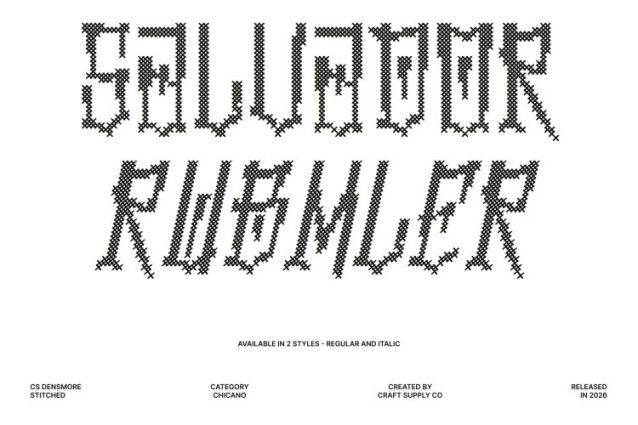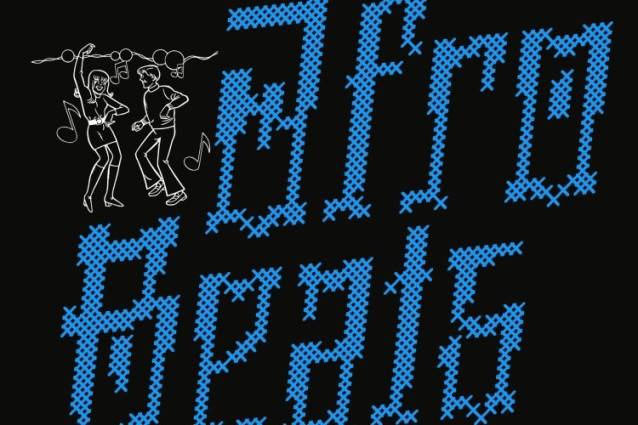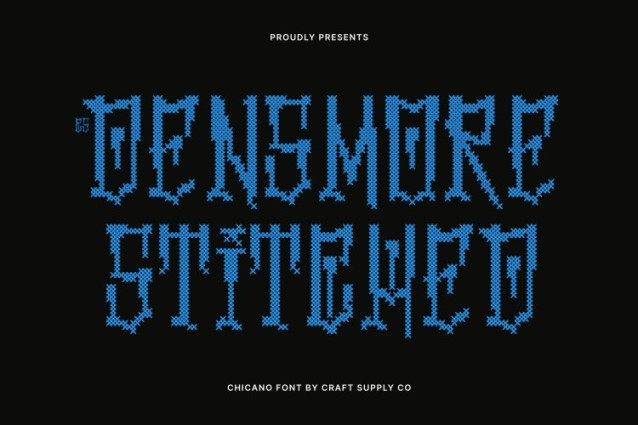
CS Densmore Stitched Font
CS Densmore Stitched Font – This is a powerful graffiti display font inspired by the vibrant artistry and cultural identity of Chicano street art. Its bold strokes, expressive curves, and confident presence embody themes of pride, rebellion, and creative freedom, making it a striking choice for designs that celebrate culture and individuality.
Fluid Letterforms with Strong Personality
The font’s defining character lies in its flowing curves and dynamic shapes. Each letter feels handcrafted and energetic, delivering a sense of movement that captures the spirit of urban expression. This fluid construction gives the typeface a bold artistic voice that stands out across creative projects.
Decorative Flourishes with Handcrafted Texture
Elegant flourishes and stitched detailing add depth and craftsmanship to the design. These ornamental touches reflect the intricate artistry found in Chicano lettering traditions, creating a typeface that feels both expressive and visually rich.
Perfect for Tattoos, Urban Branding, and Posters
This font shines in tattoo typography, streetwear branding, posters, album artwork, and urban-themed visuals. Its bold, artistic style makes it ideal for projects that aim to communicate heritage, creativity, and fearless self-expression.